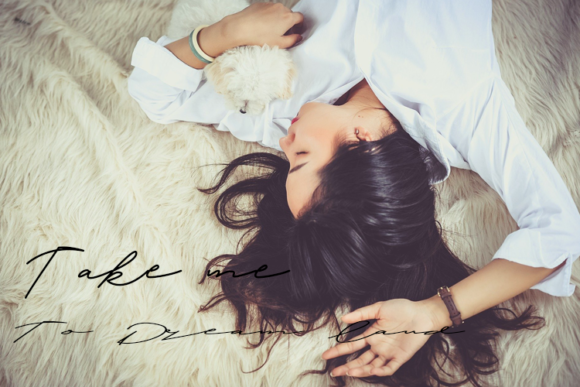
Symponi Font
About Symponi Font
Symponi is elegant and classy, but also authentic. This versatile script font has a wide range of applications ranging from branding to headlines and is guaranteed to add a magical touch to your next design.
This font is PUA encoded which means you can access all of the fantastic and fancy glyphs and swashes with ease! It also features a wealth of special features including alternate glyphs and ligatures.